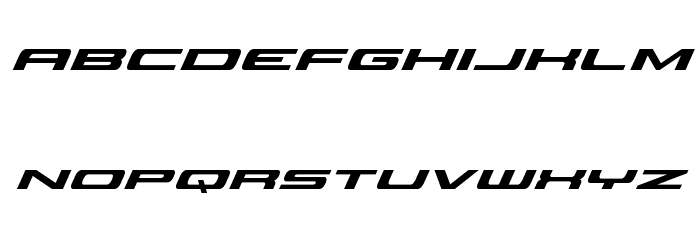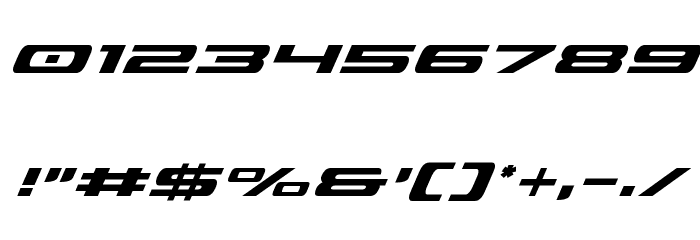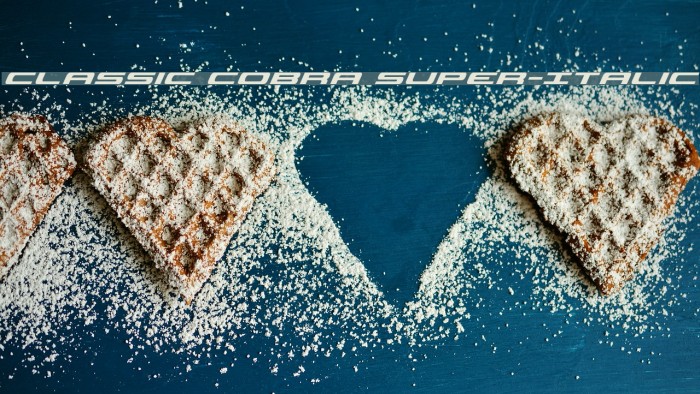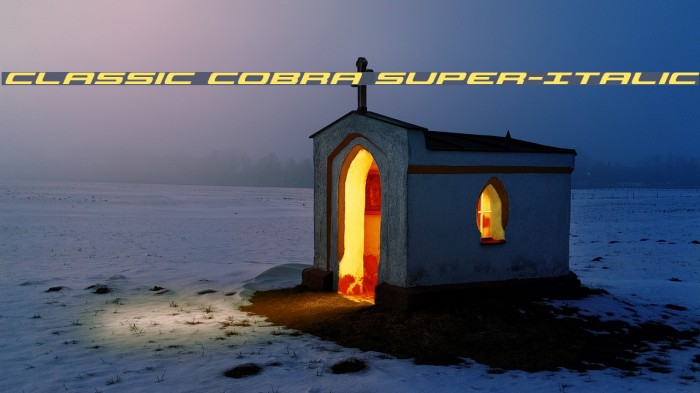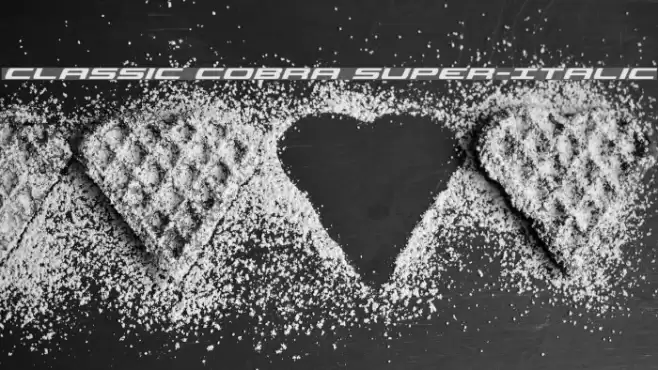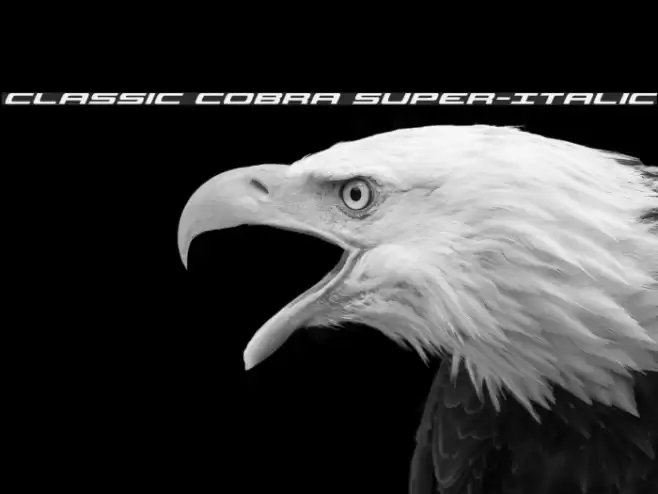
Classic Cobra Super-Italic Font
This font features a sleek, italicized design with a modern and dynamic appearance. The characters are slightly slanted, giving a sense of motion and speed. The strokes are bold and consistent, with a medium contrast that enhances readability while maintaining a stylish look. The overall design is clean and sharp, making it suitable for various creative applications. The numerals and special characters are designed to match the letters, ensuring a cohesive look across all text elements.
A sleek, italicized font with a modern and dynamic style.
- Proposed Projects: Ideal for automotive branding, sports team logos, dynamic posters, and modern website headers.